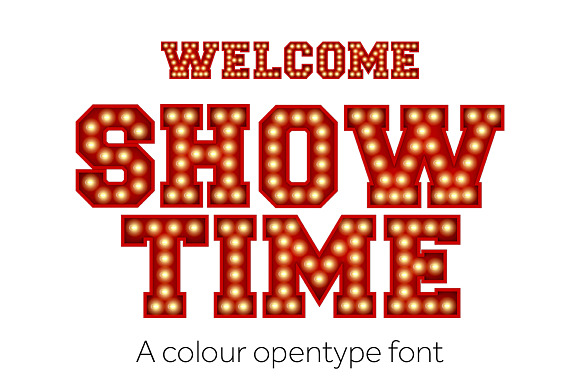
Showtime - Colour font
SHOWTIME is a colour OTF font, It works just like any normal font!!!!
Create great looking illuminated signs, perfect for events invitations!
Each letter has been created in 3D then turned into a simple to use font. Just download and start typing in beautiful red illuminated lettering. Each letter is approximately 1000 pixels in height.
Showtime - Colour font by ink drop fits naturally into Branding, posters, packaging, typography.